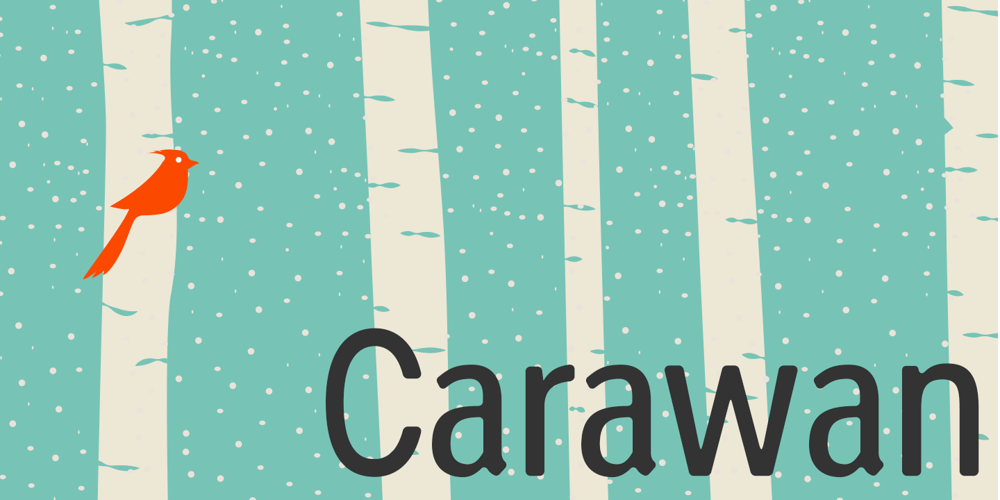
Carawan Font Family was designed by Kent Swecker and published by A New Machine. Carawan contains 4 styles and family package options. A new friendly, sans-serif, condensed, rounded family. It comes in three weights with their matching oblique and condensed versions.